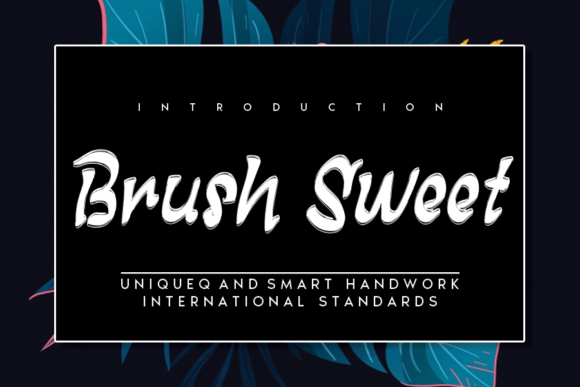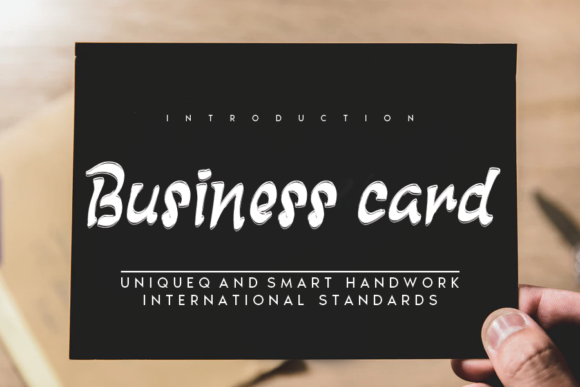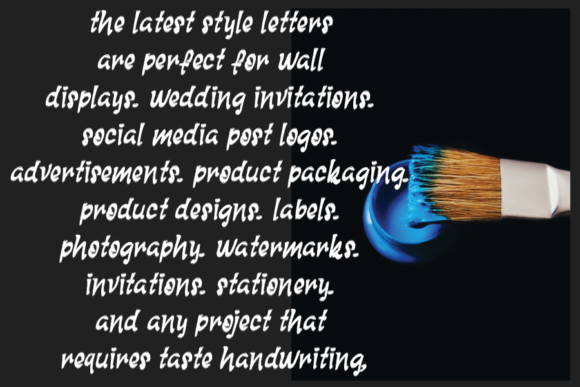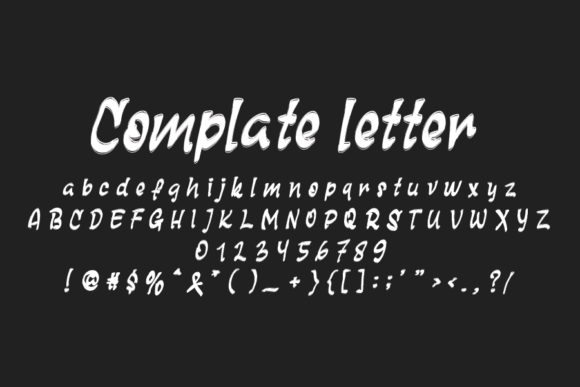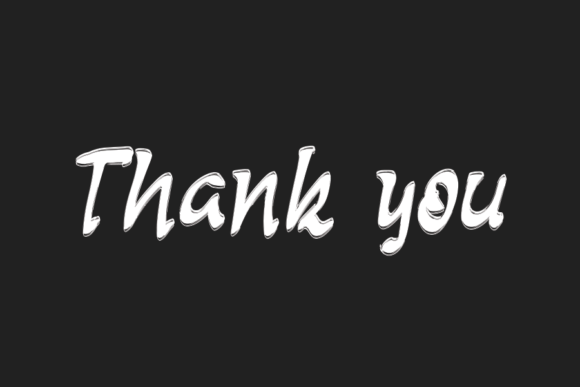
Brush Sweet Font
About Brush Sweet Font
Absolutely! Brush Sweet sounds like a wonderful and versatile handwritten font that can add a touch of authenticity and charm to various DIY projects. Here are some ideas on how you can use Brush Sweet to bring your DIY projects to life:
1. Handmade Cards: Create heartfelt and personalized greeting cards for birthdays, anniversaries, or special occasions using Brush Sweet’s endearing and authentic style.
2. Scrapbooking: Incorporate Brush Sweet into your scrapbooking layouts to add captions, titles, and journaling with a handcrafted touch.
3. Gift Tags: Design unique and eye-catching gift tags for presents, making them extra special for the recipient.
4. DIY Home Decor: Add Brush Sweet lettering to DIY wall art, decorative signs, or quote prints to infuse your home with a personal and artistic touch.
5. DIY Invitations: Design DIY invitations for parties, baby showers, or other events, creating a warm and welcoming feel for your guests.
6. Handwritten Quotes: Use Brush Sweet to write inspirational quotes or affirmations on cards, posters, or canvas prints for a motivational touch.
7. Custom Labels: Personalize your DIY creations, like homemade candles, soaps, or jams, by adding custom labels with Brush Sweet lettering.
8. Recipe Cards: Write out your favorite recipes in Brush Sweet’s endearing style to create unique recipe cards for yourself or as gifts.
9. DIY Gifts: Incorporate Brush Sweet into DIY gifts, such as custom mugs, tote bags, or keychains, to add a special and thoughtful touch.
10. Handcrafted Journals: Design handmade journals or notebooks and include Brush Sweet lettering for covers or inspirational messages inside.
11. DIY Party Decorations: Create DIY party decorations like banners, cake toppers, or party favor tags using Brush Sweet’s charming lettering.
12. Personalized Calendars: Customize calendars with Brush Sweet for a personal and creative touch to keep yourself organized.
13. DIY Art Journaling: Use Brush Sweet in art journaling to add expressive lettering to your mixed-media projects.
14. Hand-Lettered Quotes: Hand-letter famous quotes or passages using Brush Sweet and frame them as wall art for your home.
15. DIY Stickers: Design and print your own stickers using Brush Sweet, perfect for decorating planners, journals, or gift wrapping.
16. Handwritten Labels: Label storage containers, jars, or files with Brush Sweet’s handwritten labels for an organized and artistic look.
17. DIY Party Invitations: Design unique and customized party invitations with Brush Sweet’s endearing lettering for a personalized touch.
18. Handmade Gift Tags: Create handmade gift tags with Brush Sweet lettering to elevate the presentation of your thoughtful gifts.
19. DIY Greeting Card Sets: Make sets of DIY greeting cards with different designs featuring Brush Sweet’s charming handwriting.
20. Creative DIY Projects: Use Brush Sweet in any other creative DIY projects that require a touch of authenticity and artistic flair.
With Brush Sweet’s endearing and authentic style, your DIY projects are sure to become more heartfelt and unique. Embrace its charming handwriting and bring any DIY project to life with a personal and artistic touch. From handmade cards to home decor and beyond, Brush Sweet will elevate your creative endeavors and make them stand out!